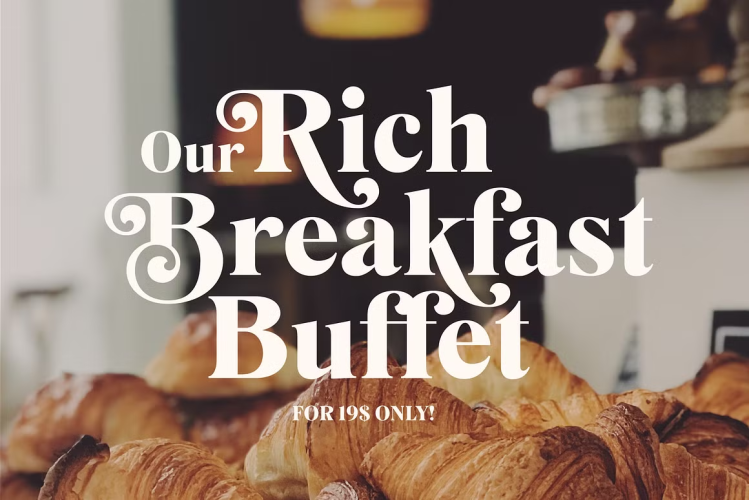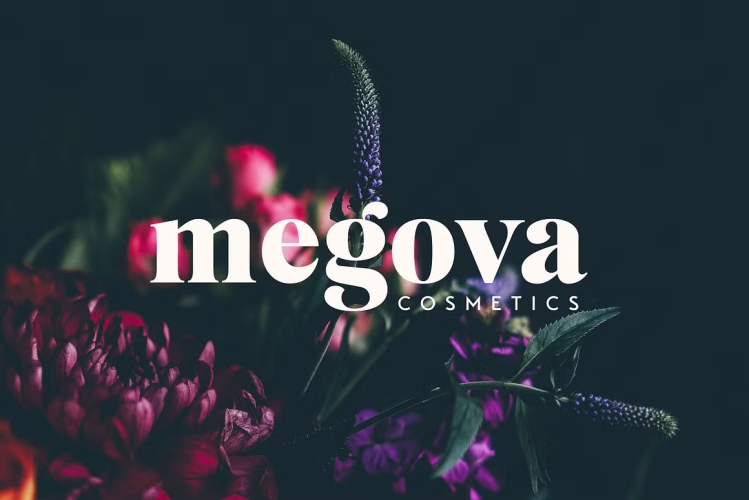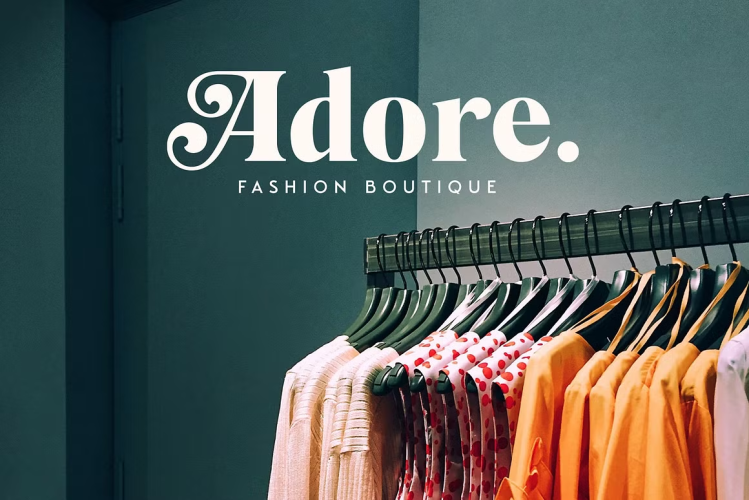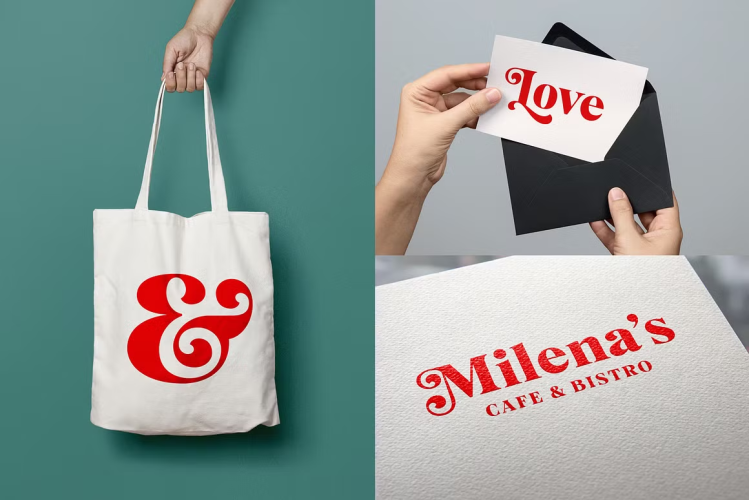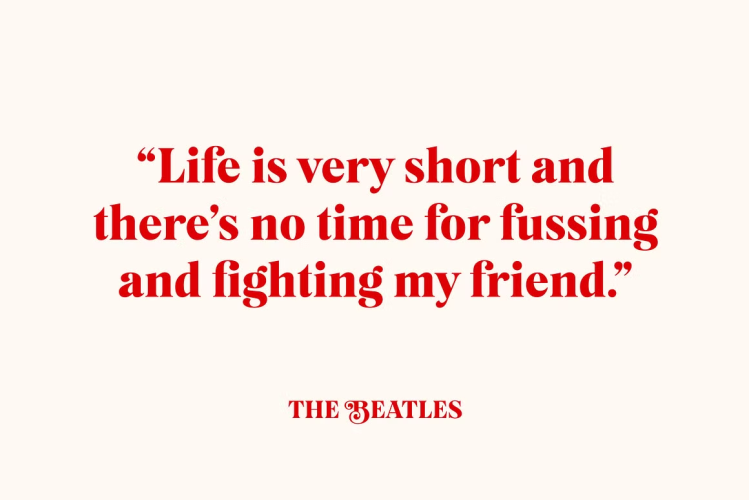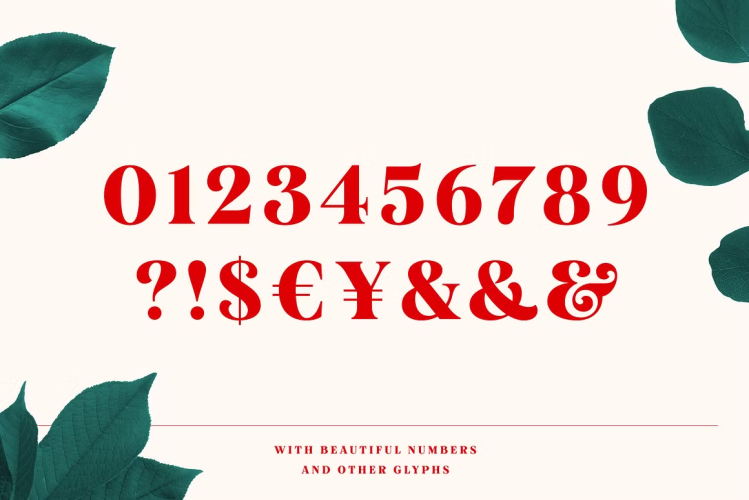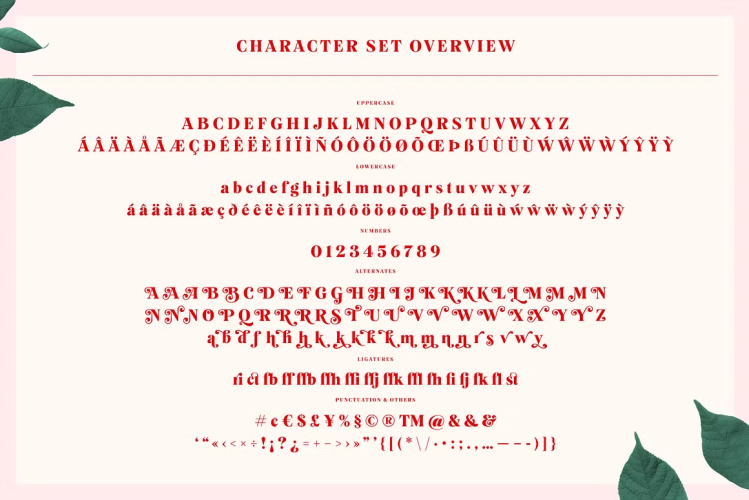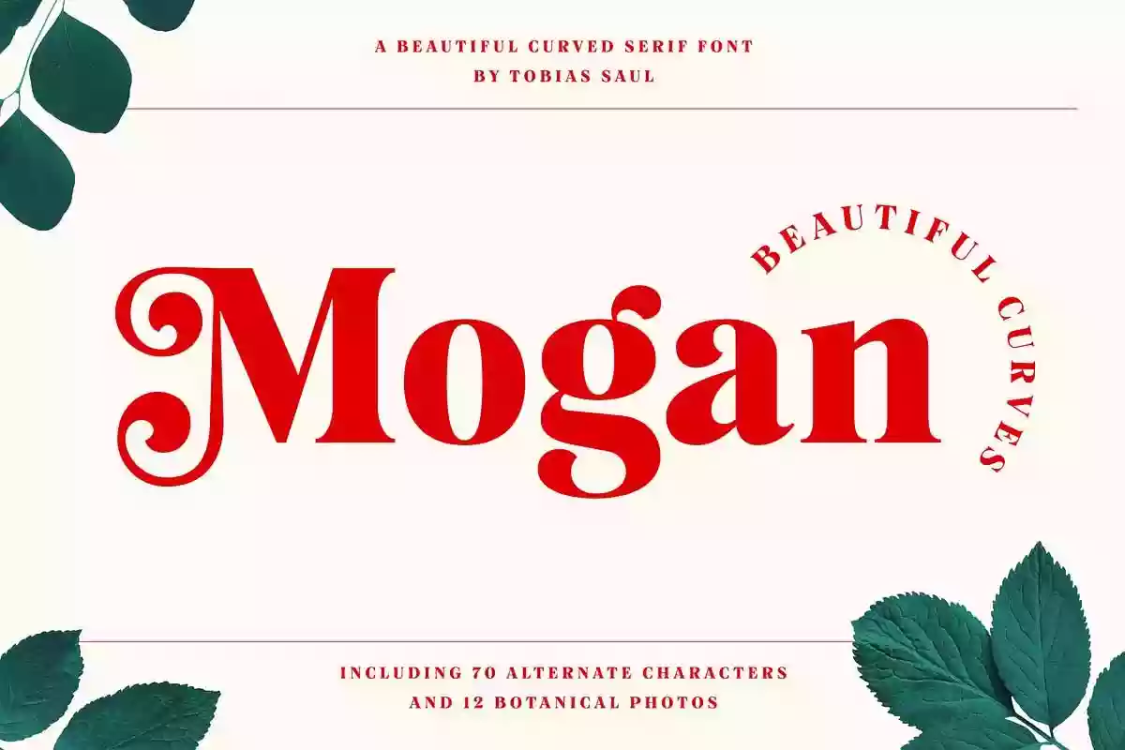
Mogan Font
Mogan is an upper and lowercase serif font with nicely balanced curves. Like all of our fonts, it is inspired by lettering from the good old past but still has a solid modern appearance. Its wide range of stylistic alternates allows versatile design options and works perfectly for headlines, logos, posters, packaging, T-shirts, postcards, and more.
Where Mogan Font works best
Mogan Font gives long-form text a classic, trustworthy rhythm — ideal for magazine spreads, annual reports and book interiors.
Pair Mogan Font with generous letter-spacing for wordmarks in fashion, hospitality, wine and jewellery branding.
Use Mogan Font for slide titles in Keynote, PowerPoint or Google Slides to add authority without looking dated.
What is Mogan Font good for?
Mogan Font is a Serif Fonts typeface tagged Branding, Headlines, Modern, Packaging. It works well for headlines, logos, posters, social media graphics and branding projects that need a distinctive serif fonts look.